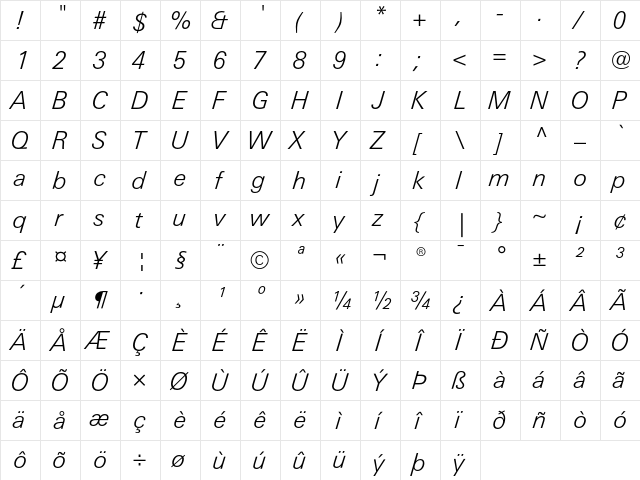
LinotypeUnivers BasicLightItalic Font Preview
Design Context for LinotypeUnivers Typeface
LinotypeUnivers takes a measured approach to typography — its balanced proportions and neutral character make it a reliable workhorse for both digital and print work. Its italic angle brings a sense of urgency and motion to the letterforms. The delicate stroke weight brings airiness and refinement to layouts.
Pro Tip: Try LinotypeUnivers for annotation and caption copy alongside an upright companion — the contrast in angle creates a dynamic but ordered typographic system.